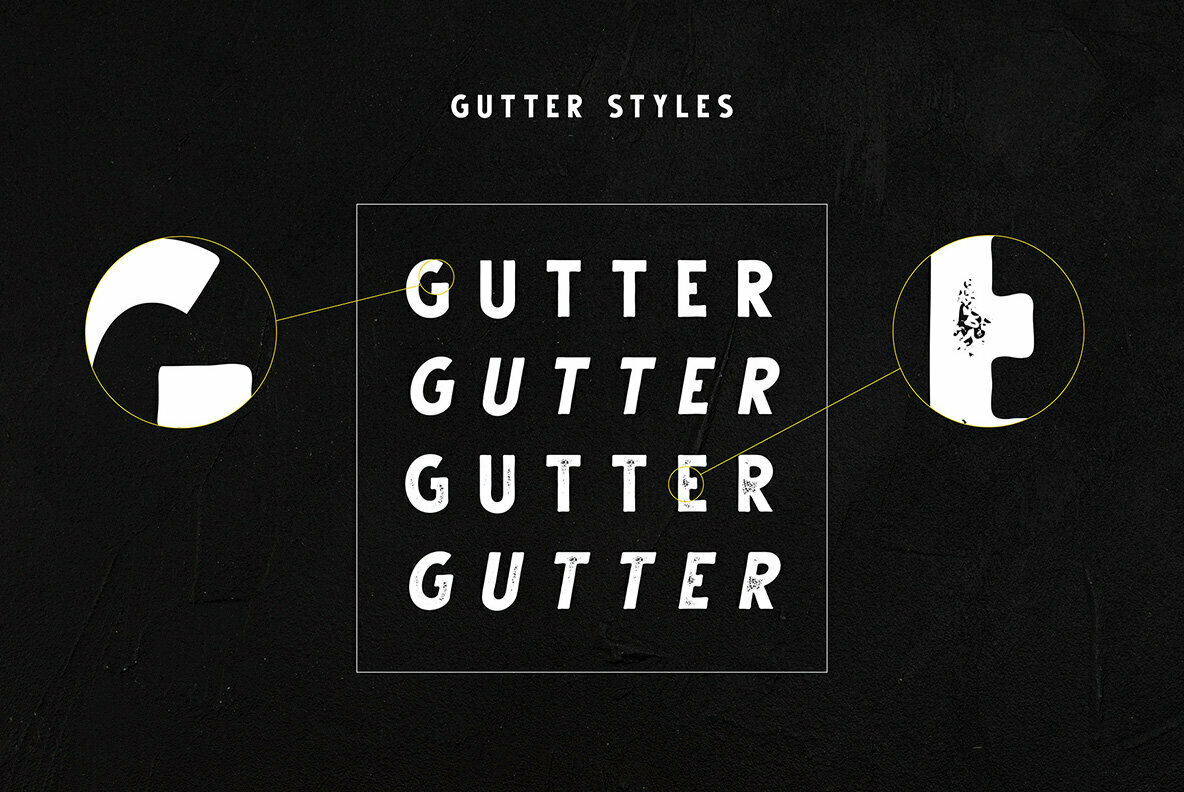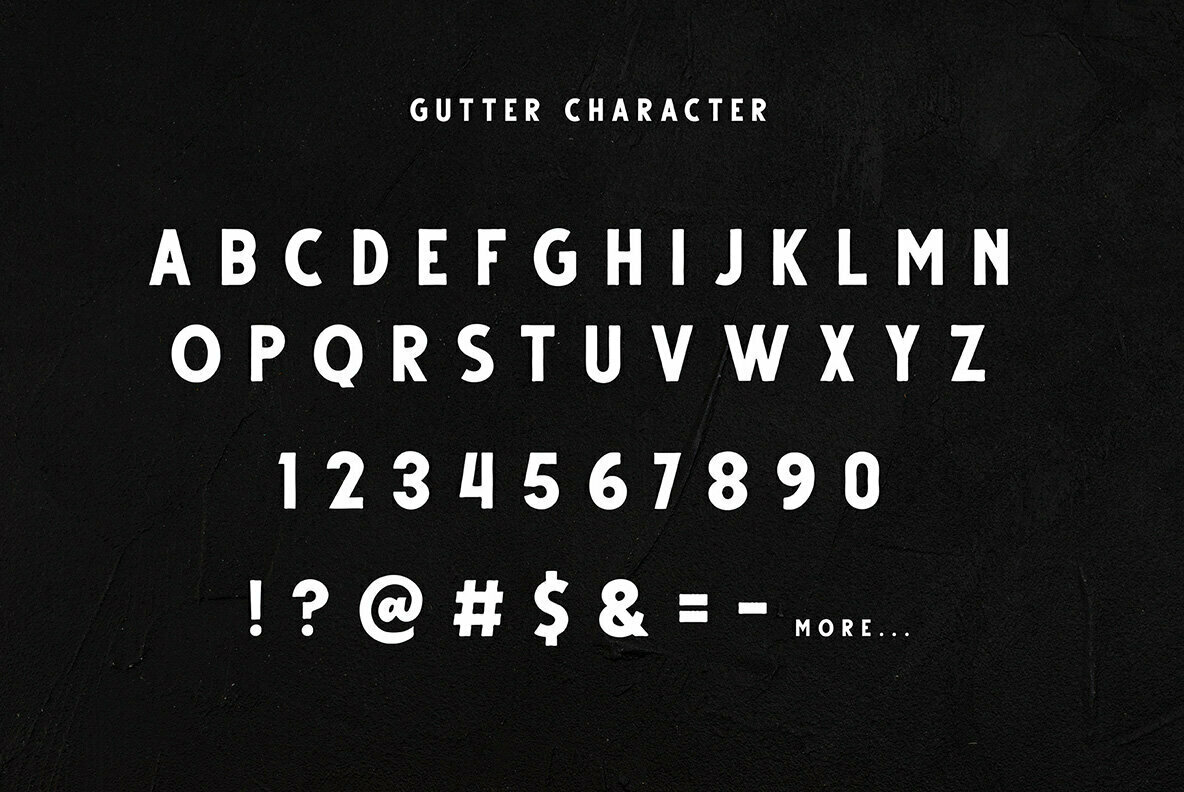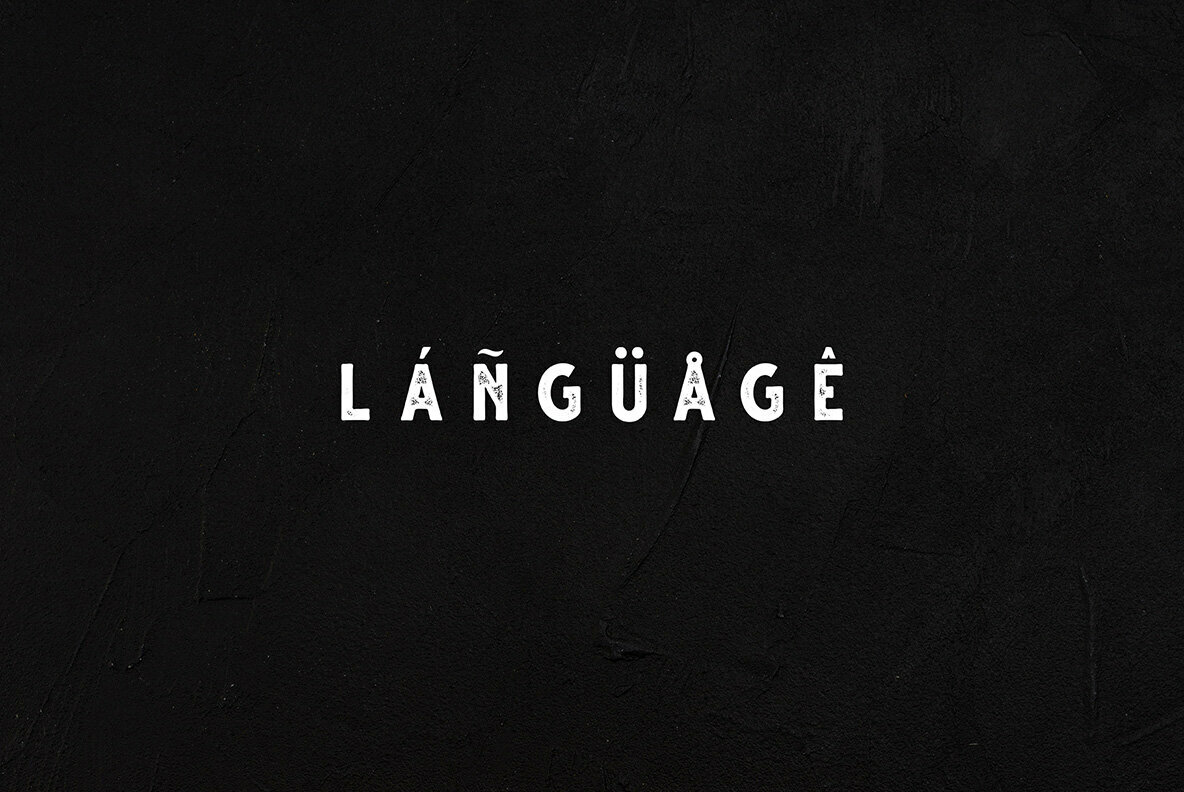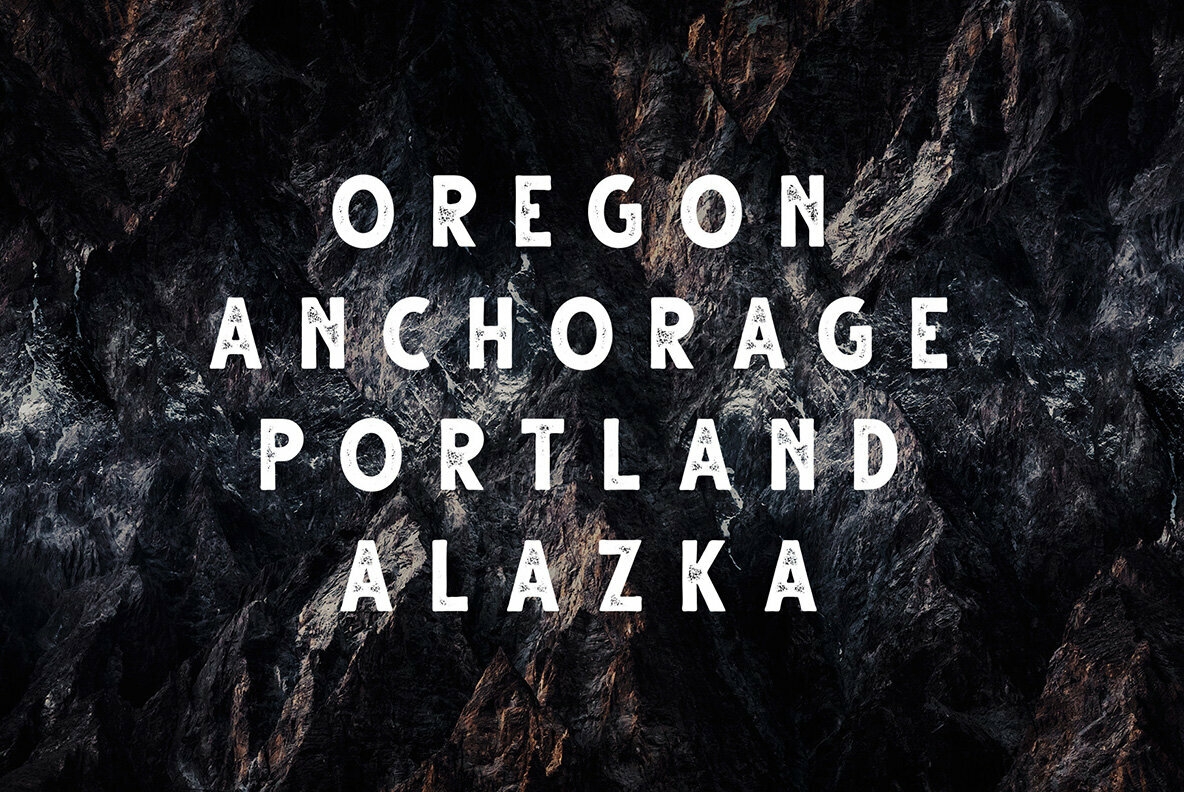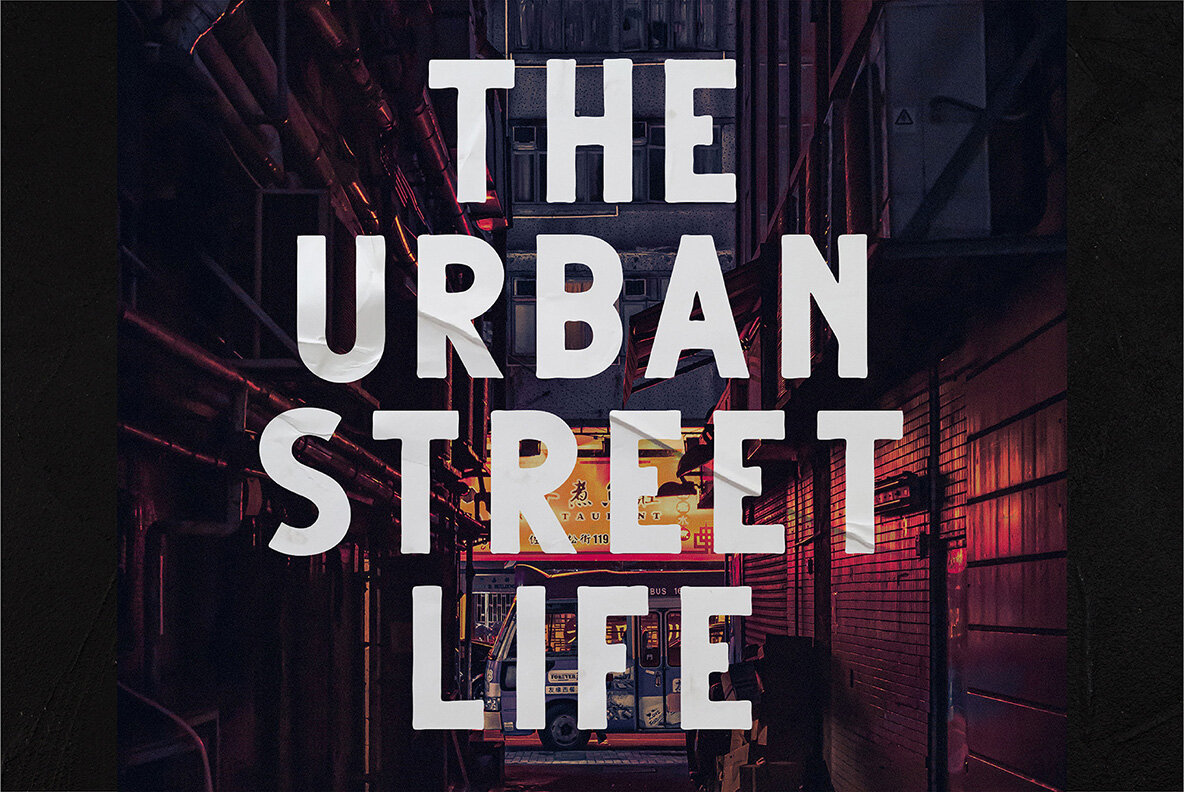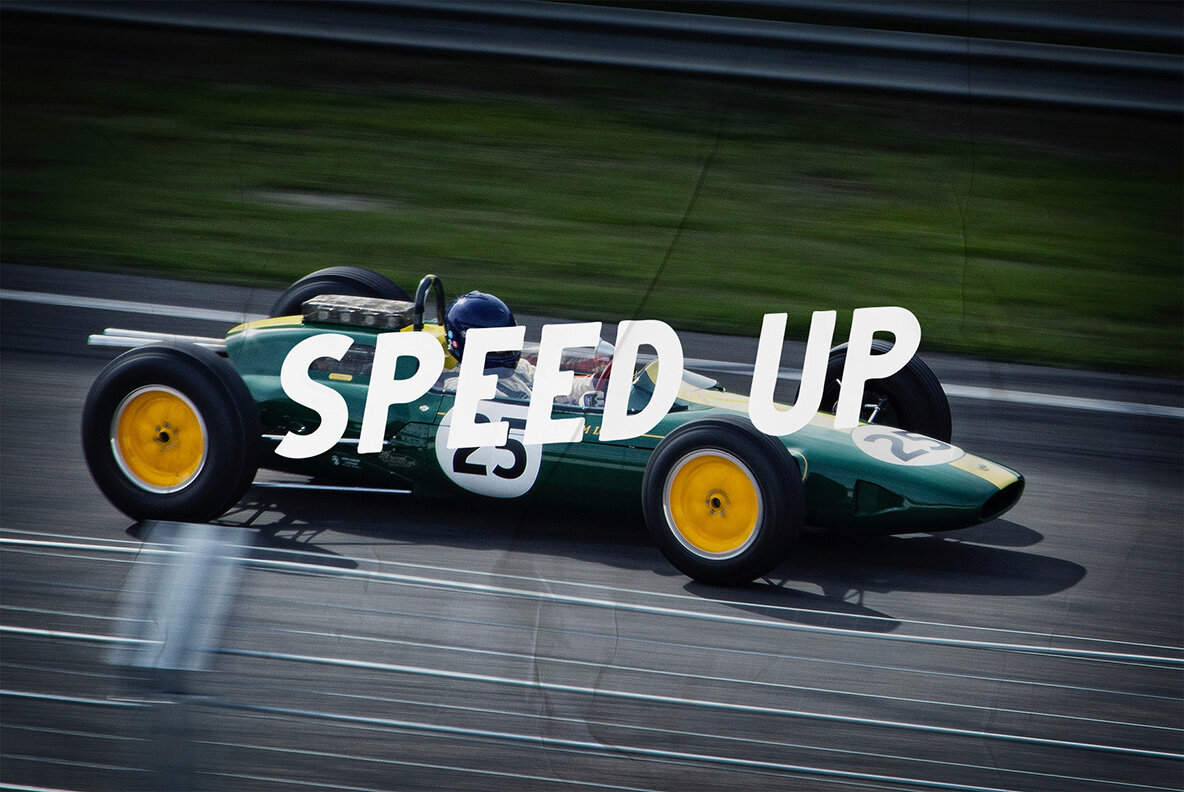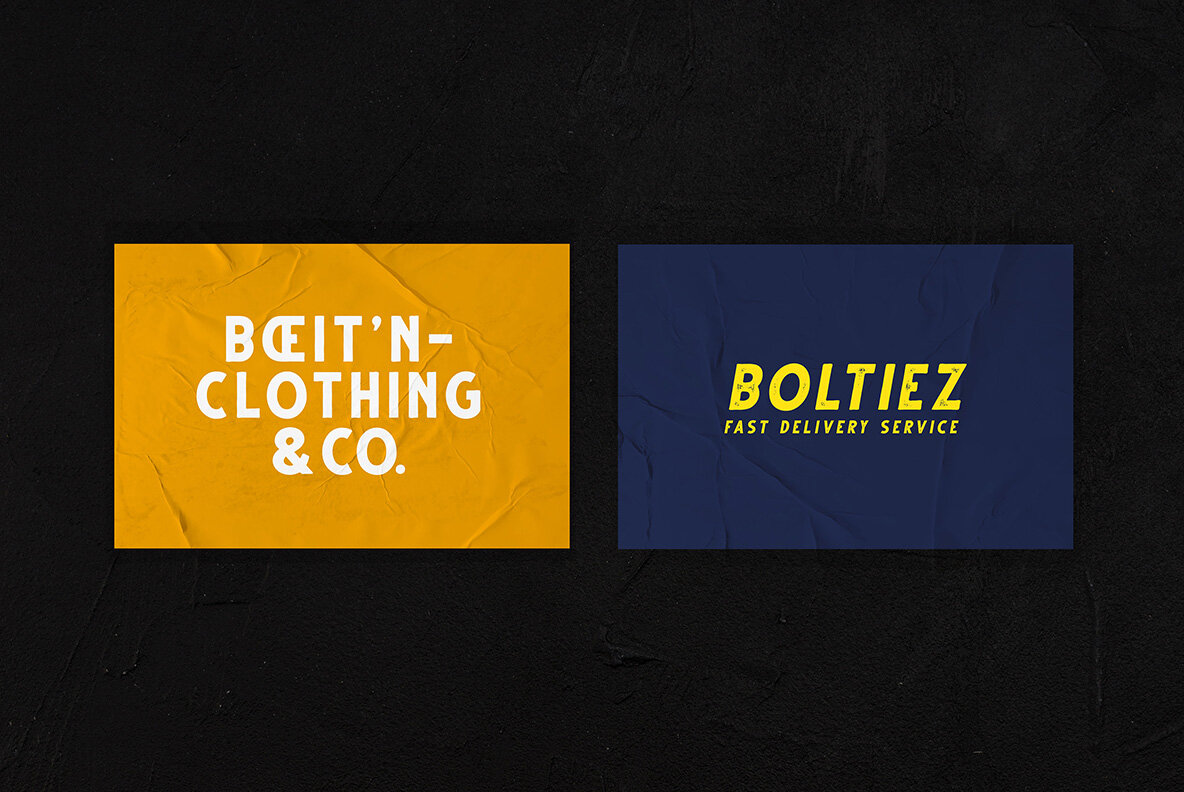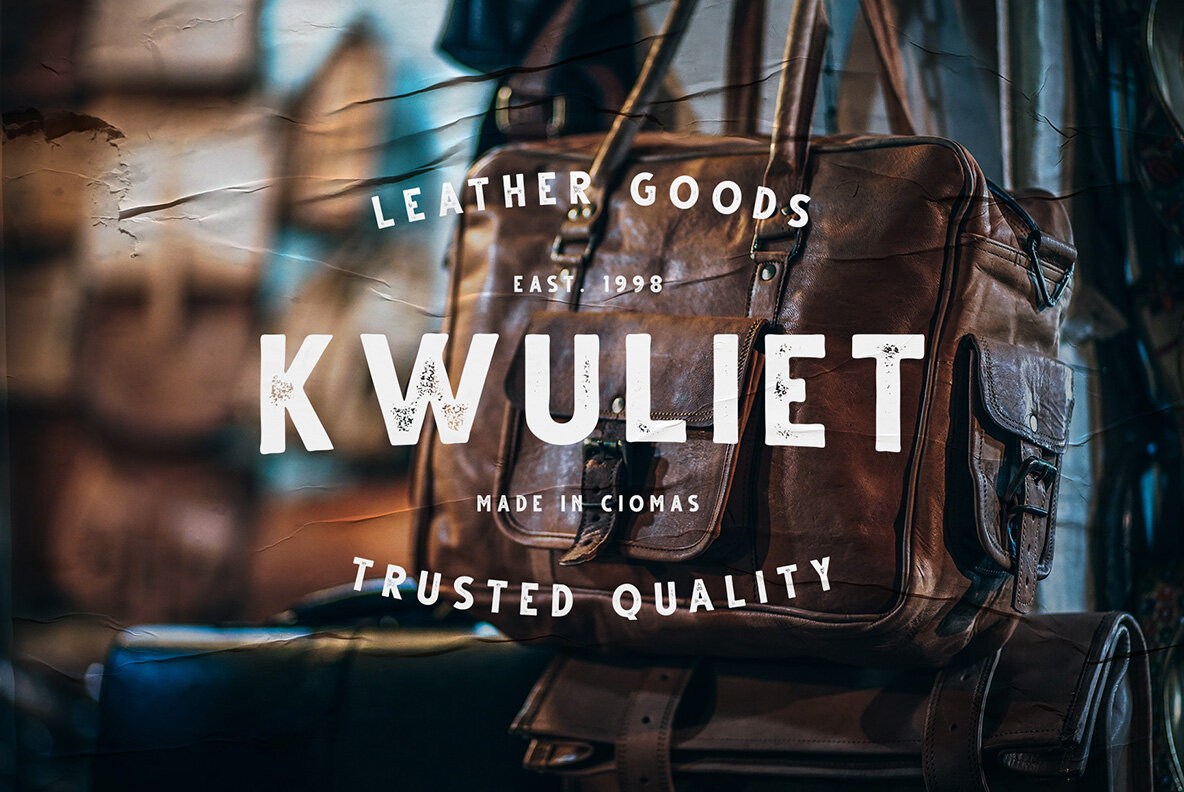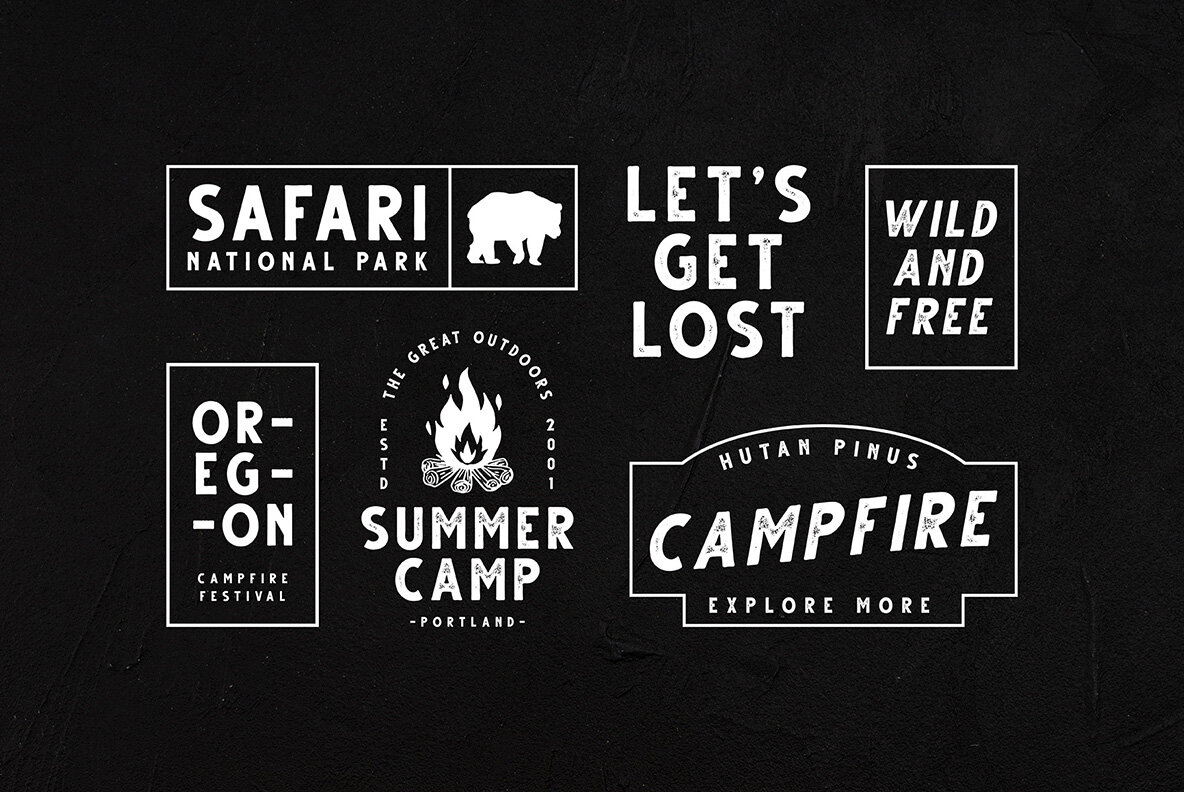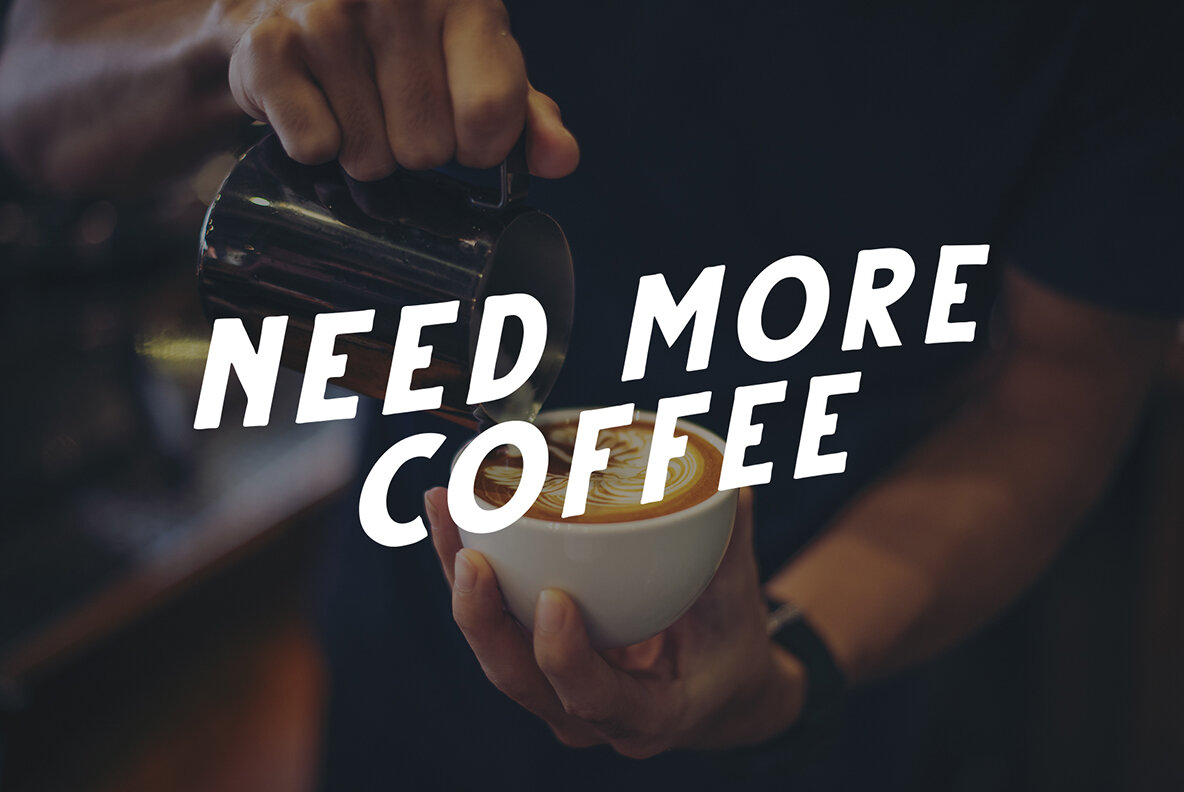
Gutter Font
Gutter Regular
Gutter Bold Italic
Gutter Italic Rust
Gutter Rust
Embrace the allure of vintage design with Gutter, a handdrawn sans serif typeface known for its rough character and nostalgic appeal. Crafted to meet the diverse needs of graphic designers, this typeface combines a timeless aesthetic with functional versatility.Gutter Typeface: Rustic Handdrawn Charm